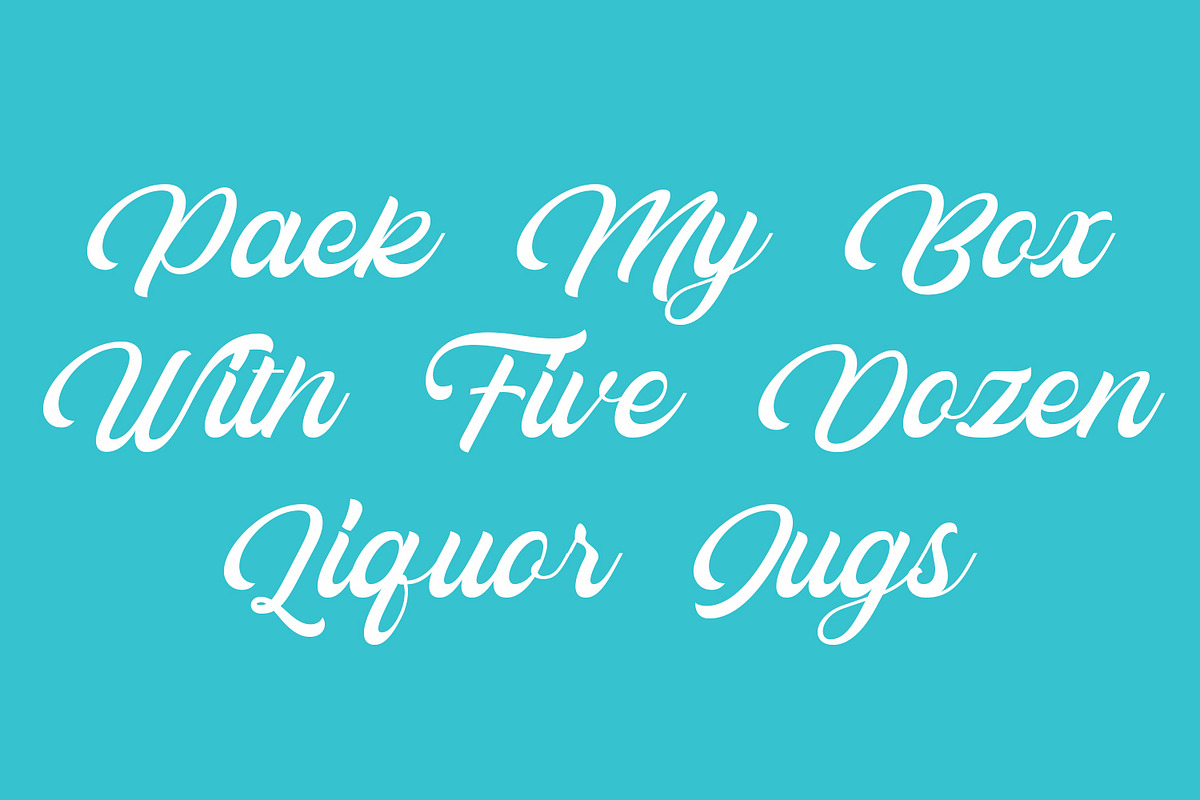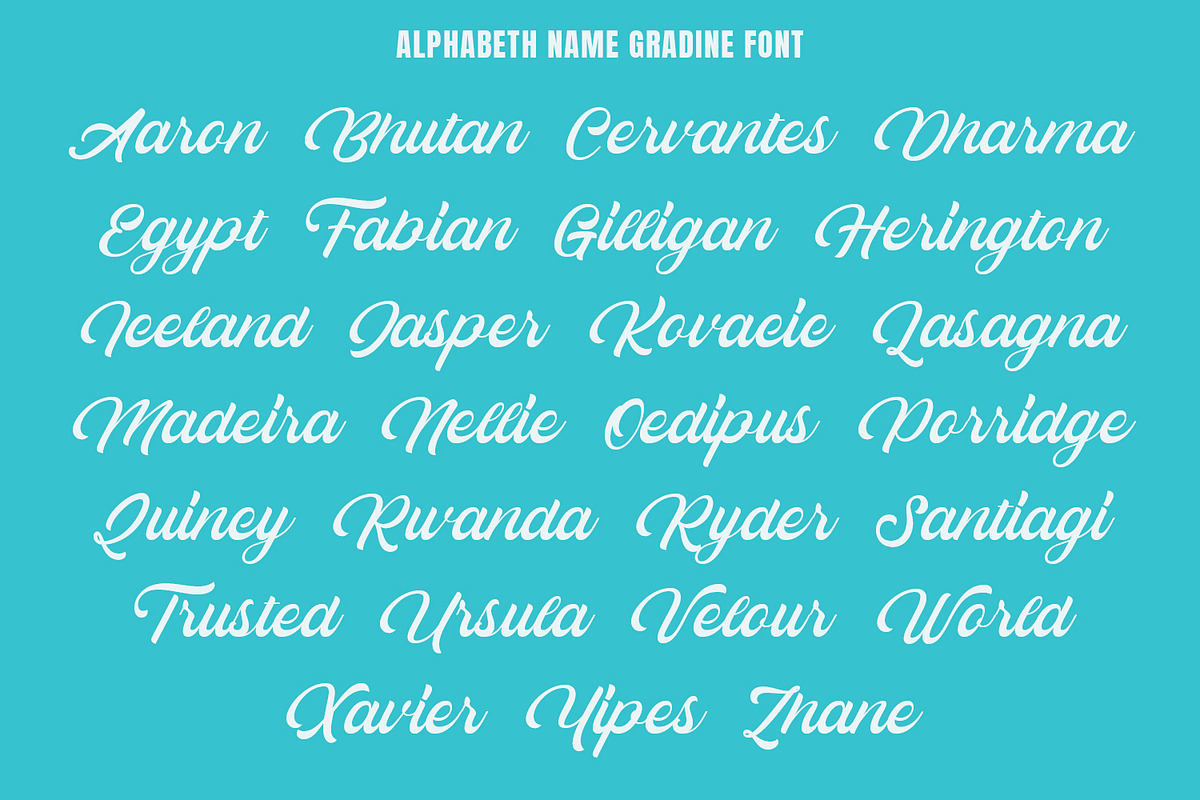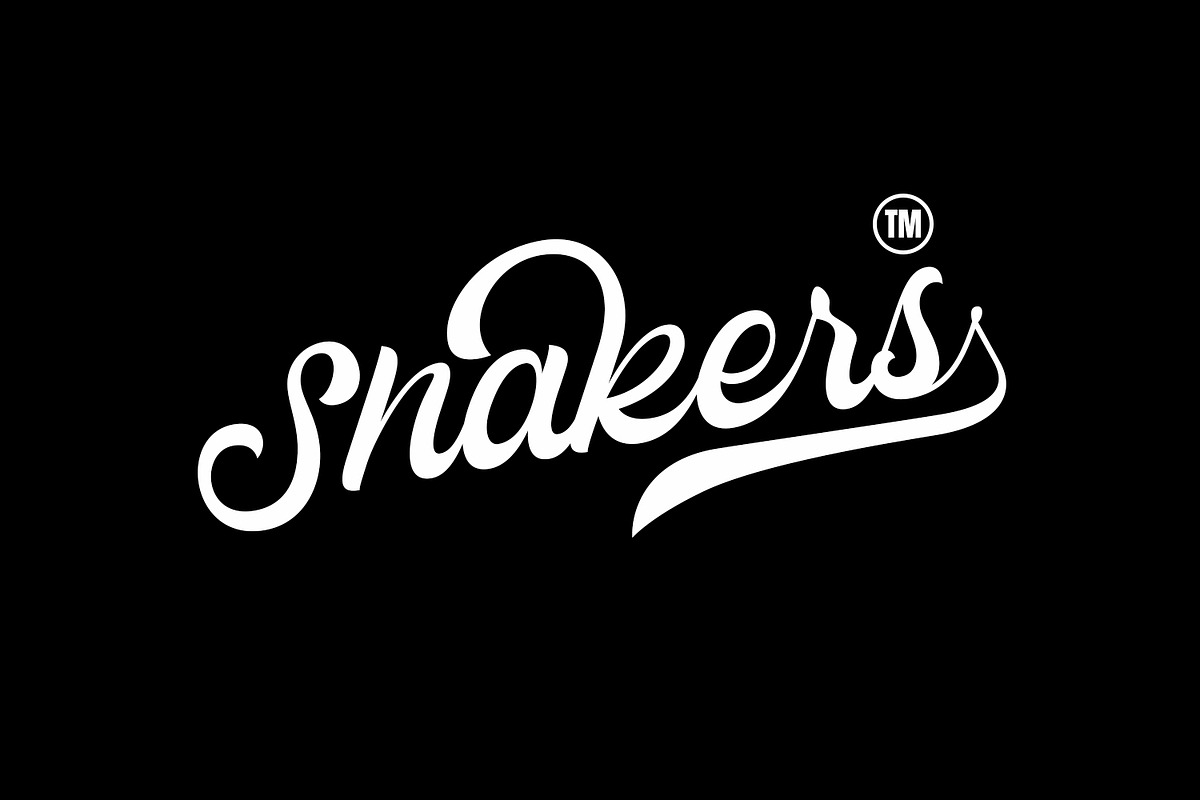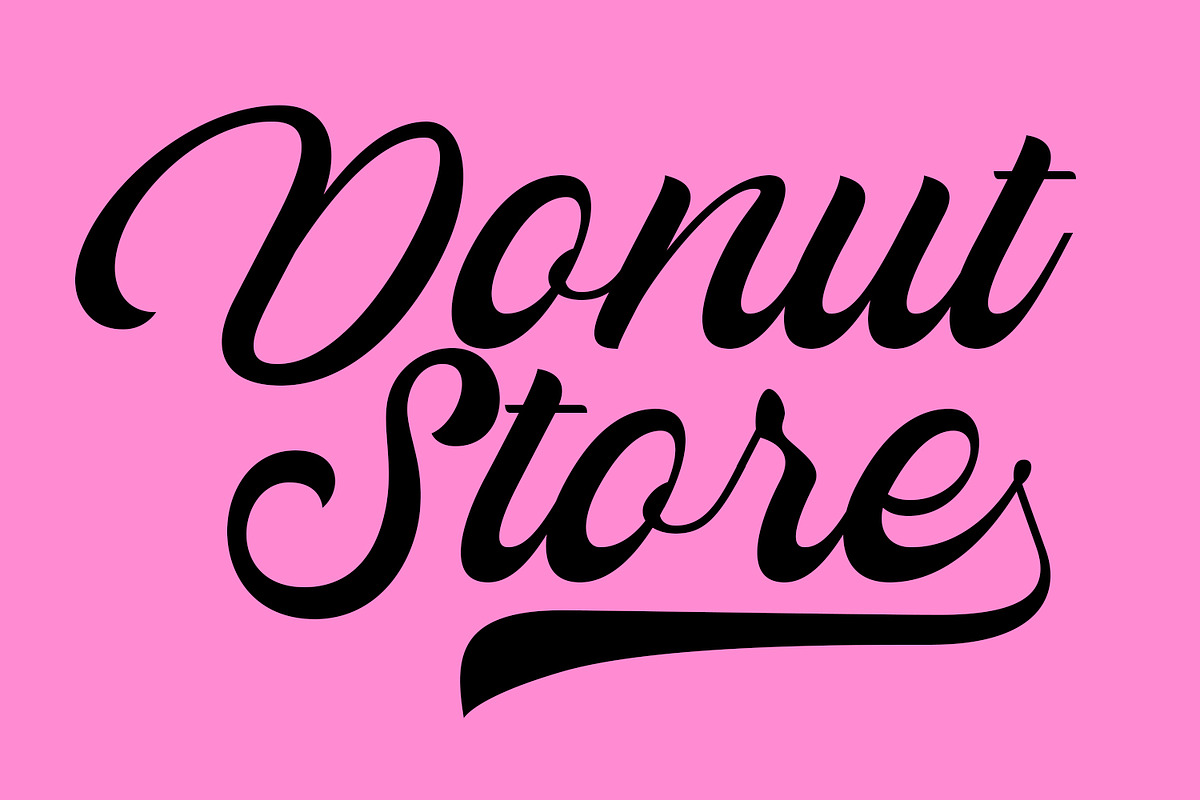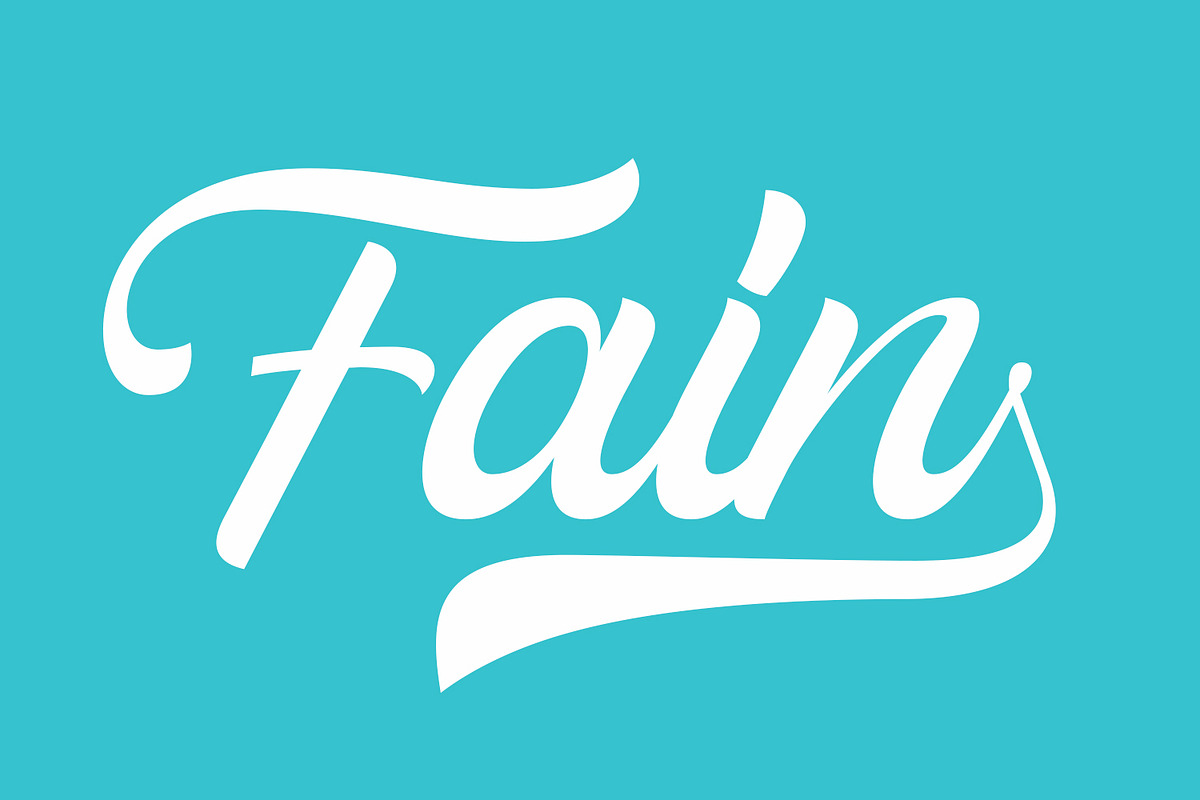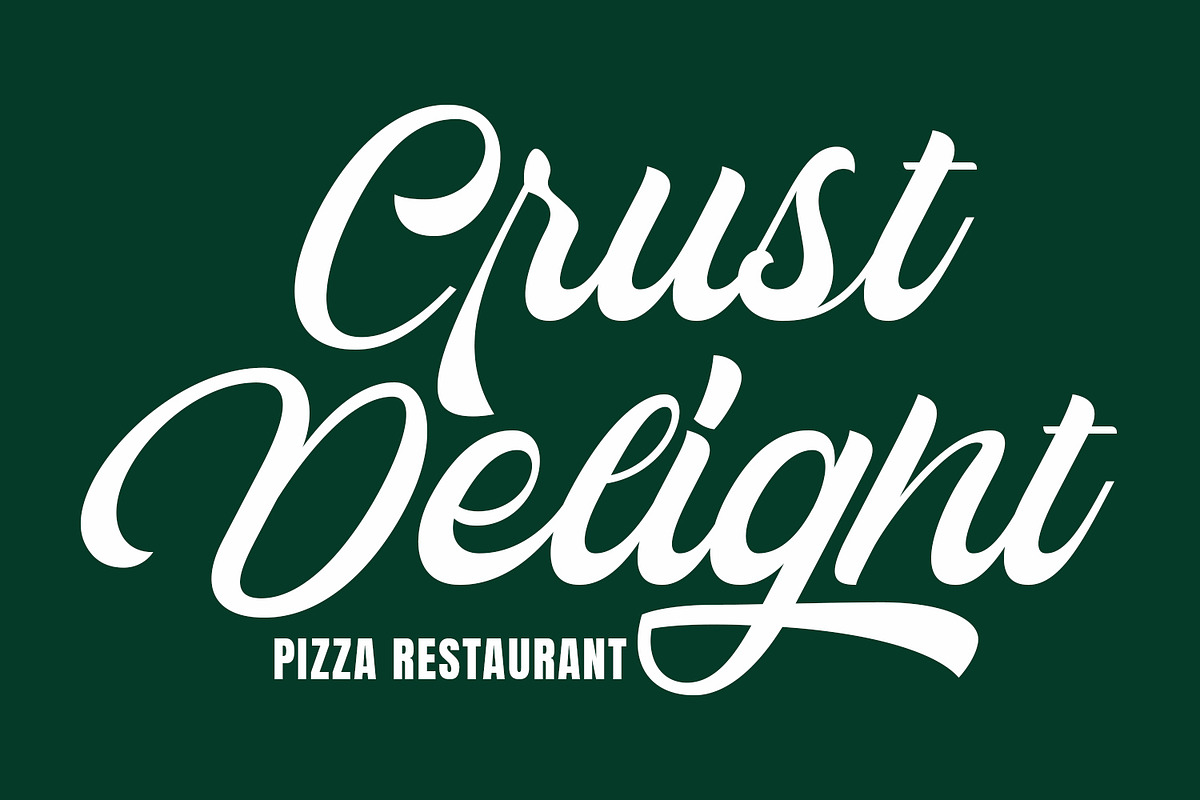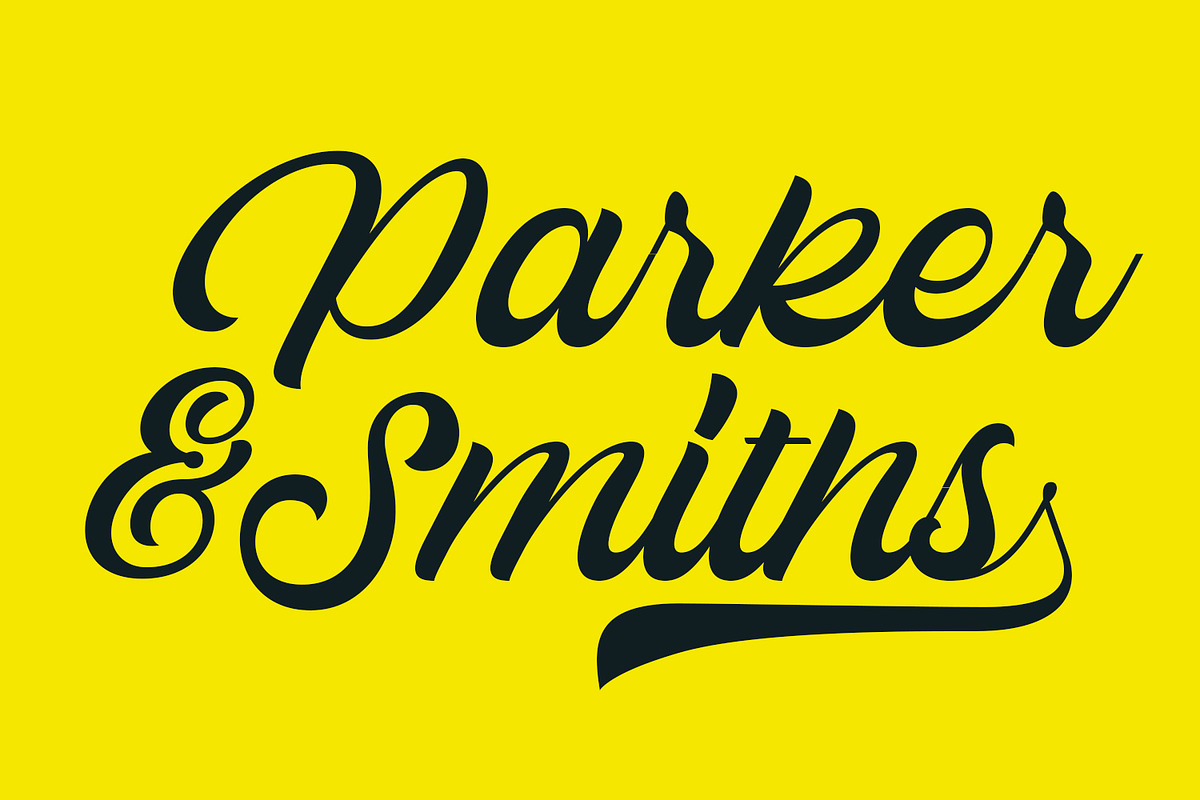
Gradine Script Font
Font Name: Gradine Script
Overview: Gradine Script is an elegant and sophisticated script font that brings a sense of style and grace to any design project. With its fluid and dynamic strokes, this font is perfect for adding a touch of elegance and refinement to a wide range of creative works. Key Features:
1. Elegant Aesthetic:
Graceful Handwriting Style: Gradine Script features beautifully flowing, connected letters that mimic the look of fine handwriting, exuding elegance and sophistication.
Refined Design: The font's delicate curves and stylish flourishes make it ideal for projects requiring a refined and polished appearance.
2. Versatile Applications:
Wedding Invitations: Gradine Script adds a romantic and classy touch to wedding stationery, making special moments even more memorable.
Branding and Logos: Perfect for creating logos and brand identities that stand out with a unique and elegant script style.
Editorial Design: Enhances the aesthetic appeal of magazines, book covers, and other printed materials with its sophisticated look.
Complete Alphabet: Includes uppercase and lowercase letters, numerals, and punctuation marks, providing a comprehensive range of characters for versatile use.
Stylistic Alternates: Offers a variety of alternative character designs to allow for customization and creative flexibility.
4. Additional Features:
Ligatures: Specially designed ligatures ensure a smooth and natural flow of the text, enhancing readability.
Swashes and Flourishes: Decorative elements can be added to characters for an extra touch of elegance and style.
Logo Design: Gradine Script’s elegant and stylish script style makes it perfect for crafting memorable and sophisticated logos.
Wedding Invitations: Create timeless and beautiful wedding invitations that capture the essence of romance with Gradine Script’s graceful script.
Product Packaging: Add a layer of sophistication to product labels and packaging with Gradine Script’s refined and stylish design.
Uppercase and lowercase characters
Numerals and Punctuation (OpenType Standard)
Accents (Supports Multilingual Characters)
Conclusion: Gradine Script is an elegant and sophisticated script font that brings a touch of style and grace to any project. Its beautifully flowing letters and refined design make it an excellent choice for a wide range of applications, from wedding invitations to branding. With Gradine Script, every design becomes a work of art, infused with elegance and sophistication.
Why Gradine Script Font is worth a look